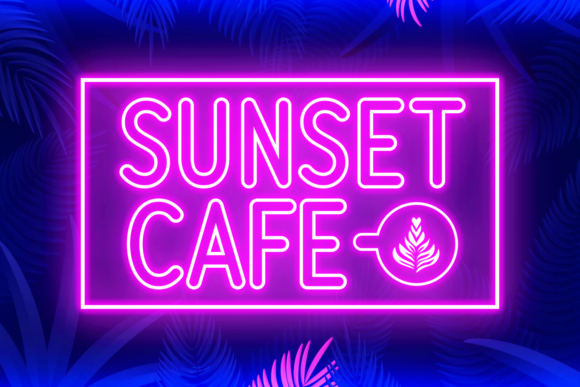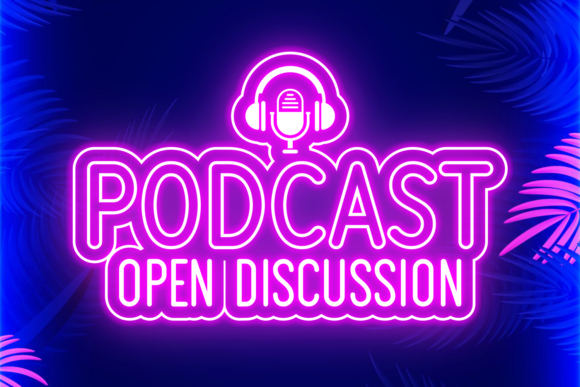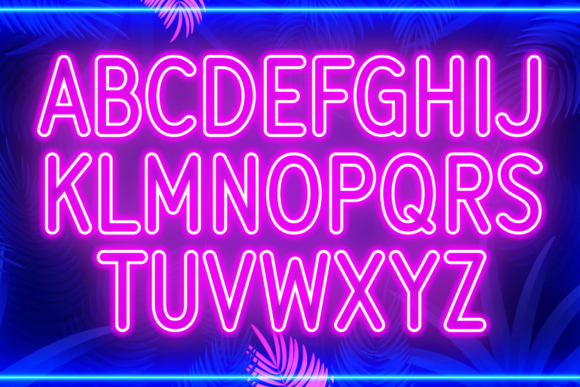
Introduction to Neonie Font
Do you remember that moment when you’re brainstorming ideas for a new design project, and suddenly, a spark of creativity hits you? You envision a bold, eye-catching font that screams “attention-grabbing” and “cool.” That’s exactly what you get with the Neonie Font – a sleek, outlined display font that’s perfect for making your designs stand out.
As a designer, you know how valuable it is to have a reliable design resource that can elevate your creative projects. Neonie Font is that go-to resource. With its transparent background and high-quality design, it’s an ideal choice for logotype, headline font, and corporate identity projects. Plus, it’s available for free download, making it an unbeatable asset for designers of all levels.
Whether you’re working on a poster, a music video, or a website, Neonie Font is the perfect addition to your design toolkit. Its versatility and style make it a valuable asset for any creative project, and we’re excited to dive deeper into what makes this font so special.
Key Features of Neonie Font
- Unique, stylish font with a transparent background, perfect for adding a touch of elegance to your design.
Honest Review: Neonie Font
I recently had the chance to work with the Neonie Font, a popular design resource for creative projects. I was excited to see how it would perform in my latest design project.
The Neonie Font is a high-quality font that offers a wide range of styles and designs. One of the standout features of this font is its ability to be used with a transparent background, which makes it perfect for projects where you need a clean and minimalist look.
- ✨ Wide range of styles and designs
- ✨ Compatible with transparent background
- ✨ High-quality font files
Overall, I was impressed with the Neonie Font. It’s a great addition to any designer’s toolkit and is perfect for creative projects where you need a high-quality font. While it may have some limitations, it’s definitely worth checking out for your next design project.
Tips for Getting the Most Out of Neonie Font
Use the Neonie Font in conjunction with other high-quality design resources to create a visually stunning design. Experiment with different font sizes, colors, and styles to find the perfect combination for your creative project. Don’t be afraid to try out new ideas and push the boundaries of what’s possible with the Neonie Font.
The Neonie Font is perfect for creative projects such as logo design, branding, and advertising. Its high-quality design and transparent background make it an ideal choice for designers who want to create visually striking designs. Whether you’re working on a small project or a large-scale campaign, the Neonie Font is a valuable design resource that can help you achieve your goals.